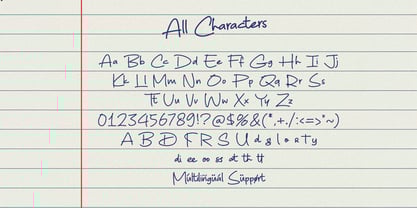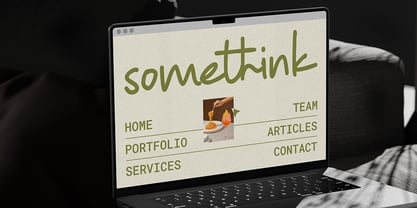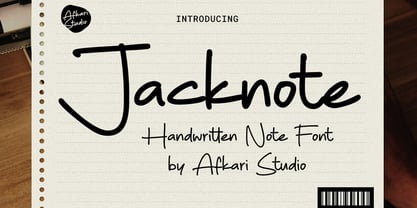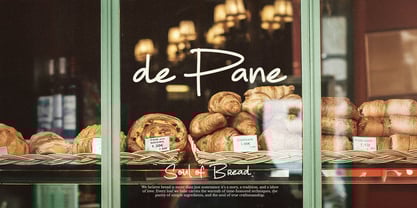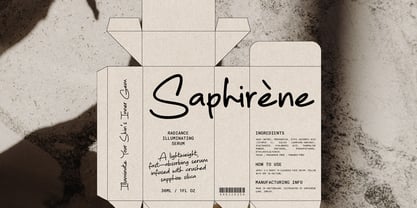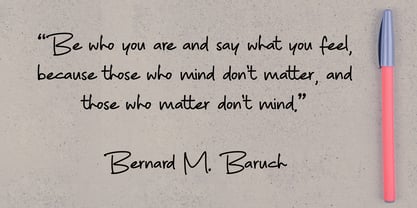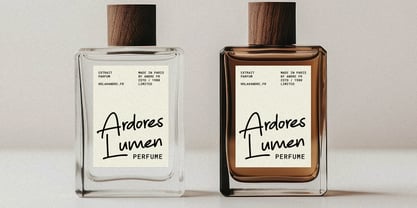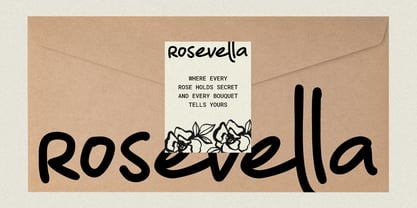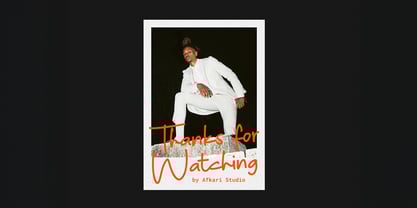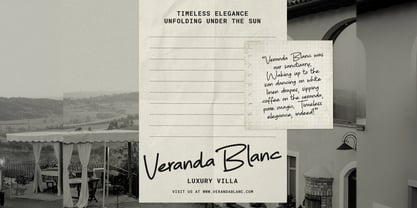
Jacknote
The Jacknote Font Family was designed by Musthafa Kamal Emje and published by Afkari Studio. Jacknote contains 2 styles and family package options. More about this family
Jacknote - Handwritten Marker Note Font
Jacknote is a dynamic and expressive handwritten font that captures the charm of real marker handwriting. Designed to add personality and warmth, this font comes in Regular and Bold styles, making it versatile for a wide range of creative projects. Whether you're working on personal notes, branding, or digital content, Jacknote delivers an authentic and natural look.
Highlighted Features:
* Complete set of uppercase and lowercase letters, numerals, and punctuation marks
* Unique alternates and ligatures for additional character variety
* Multilingual support includes characters like ä, ö, ü, Ä, Ö, Ü, ß, ¿, and ¡
With Jacknote, you can bring a fun and natural handwritten feel to any project. Whether you need a light touch with Regular or a stronger presence with Bold, this font is perfect for adding creativity and personality to your work!